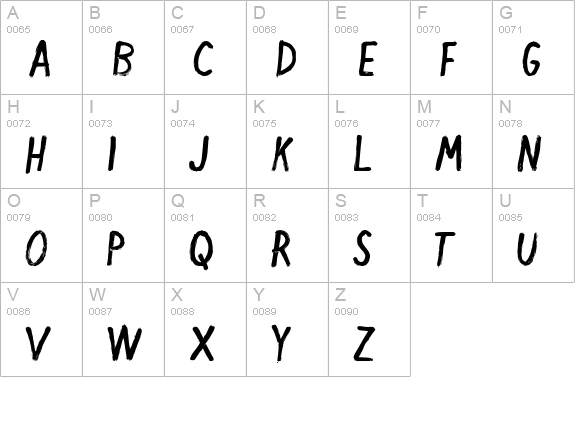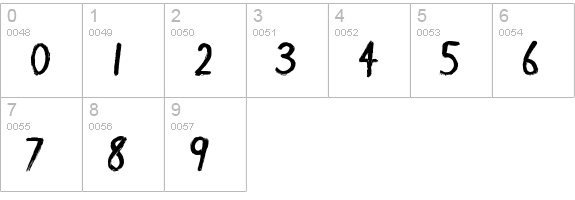
Dirty Finger Font Details
Dirty Finger font is a bold and edgy typeface that exudes a rebellious and raw energy. With its jagged edges and distressed appearance, this font is perfect for creating eye-catching designs that demand attention. The uneven strokes and rough texture give Dirty Finger a gritty and urban feel, making it ideal for projects that require a touch of attitude. What sets Dirty Finger font apart is that it is not only striking in appearance, but it is also free to download. Available at FontsMarket.com, this unique font can be easily accessed and used in a variety of design projects without any cost. Whether you are working on posters, album covers, or branding materials, Dirty Finger font is sure to add a bold and unconventional flair to your creations. Download it today and unleash your creativity with this free and daring typeface.